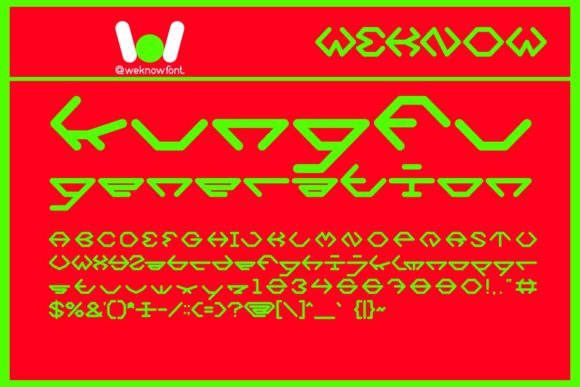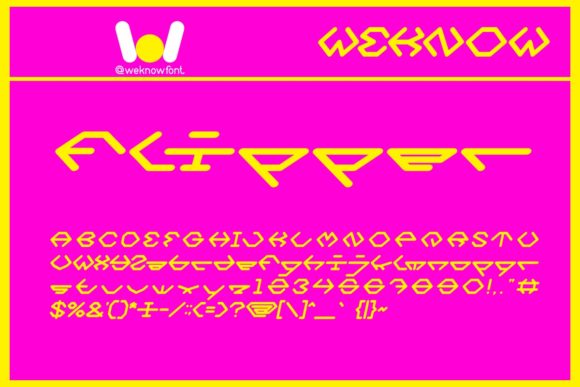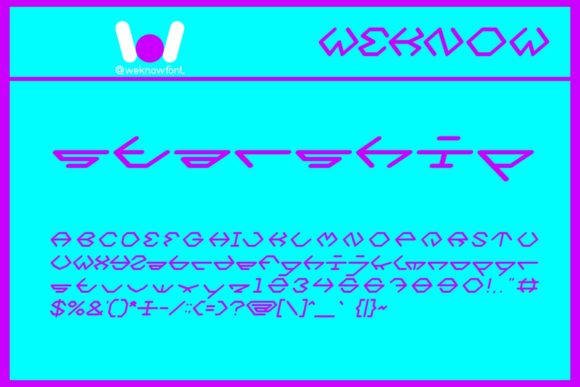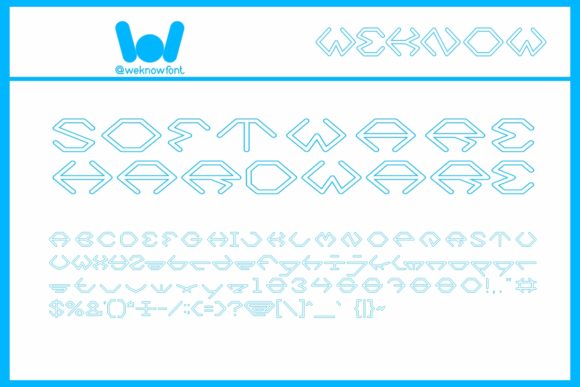
Introduction to Inside Font
Inside is a futuristic display font.
It features a playfully conceptual style that makes it the perfect font for logos, posters, flyers, book covers, magazines and anything that requires a unique look .